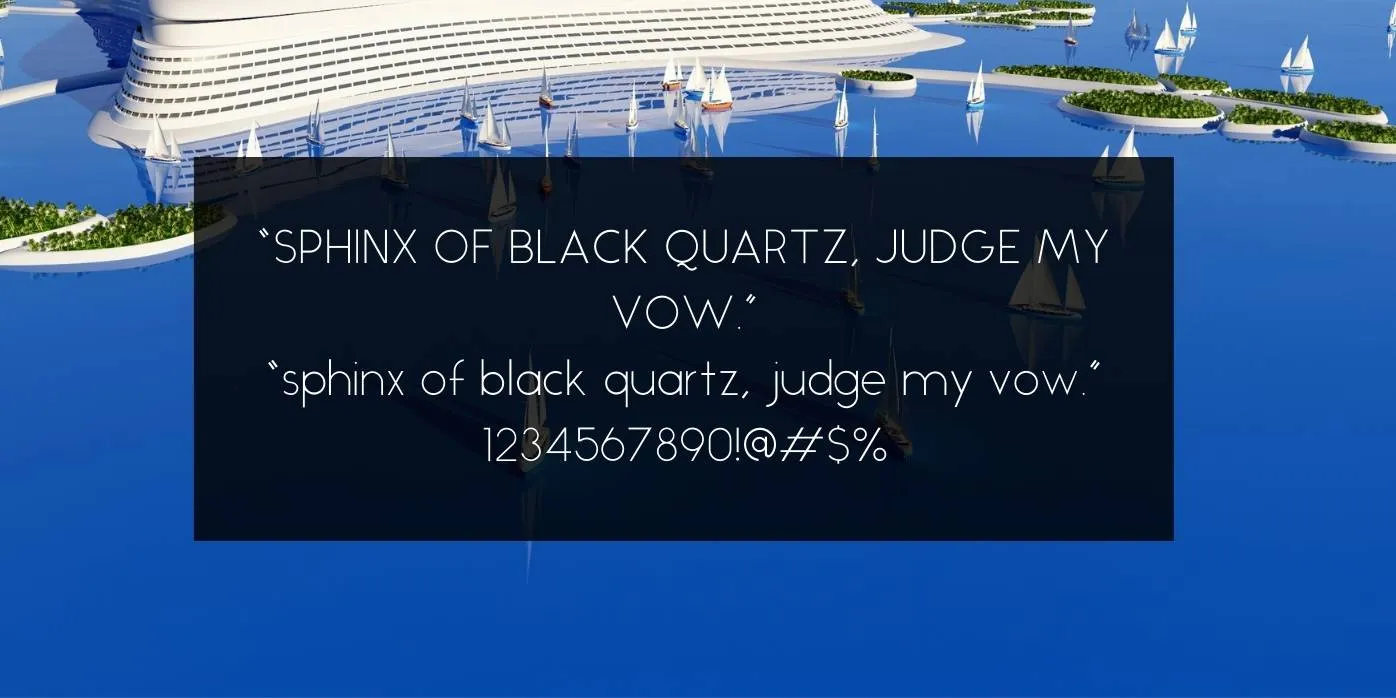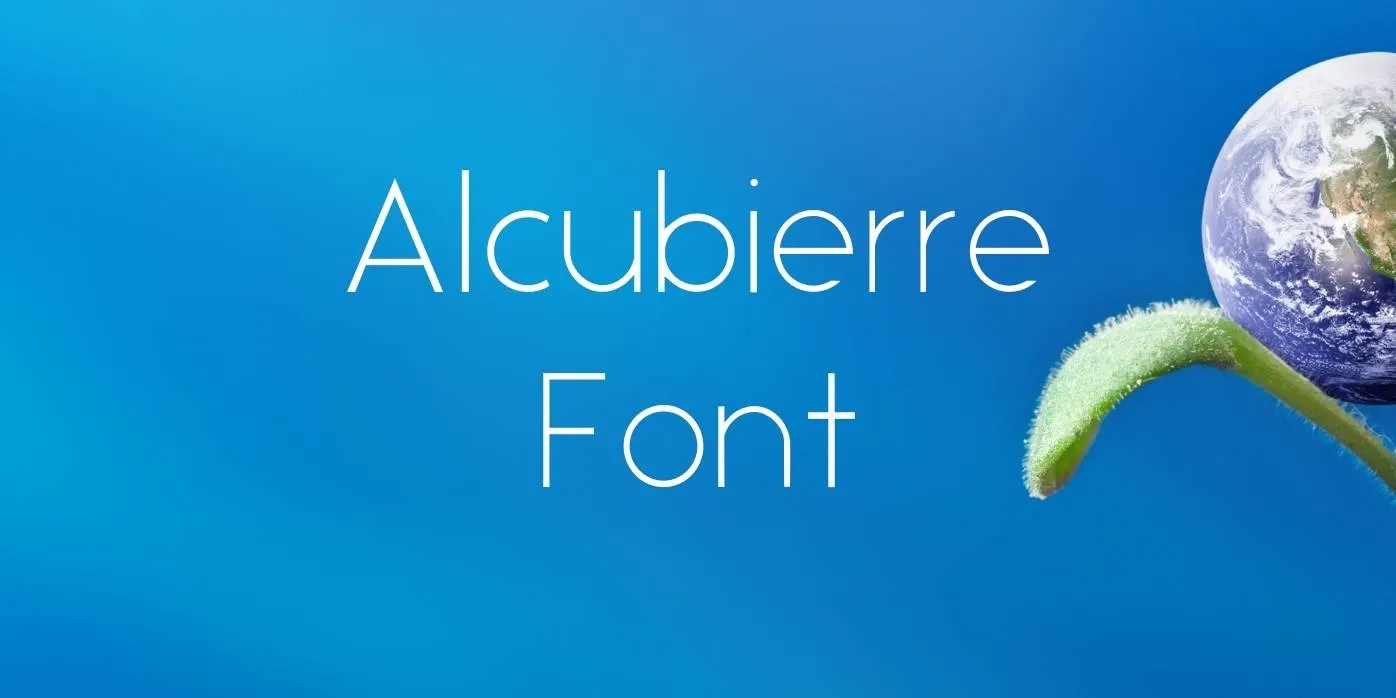
Alcubierre Font
Alcubierre Font belongs to the sans serif font family. This stunning font family was created by Matt Ellis. The font family is available in two styles, regular and italic. This awesome font is a unique typeface with a strong futuristic feel.
It’s perfect for headlines, logos, and displays text. The sharp angles and clean lines make it perfect for cutting-edge designs. This stylish typeface has a lot of interesting Bold features. For instance, the lowercase letters have long tails that give them a very stylish look.
Another similar font which is the cena font is perfect for different designs. It is also used for both commercial and personal tasks. The uppercase letters are also very interesting. They have sharp points that make them look like they’re about to take off.¬† Alcubierre Font is perfect for any design that needs a touch of futurism.